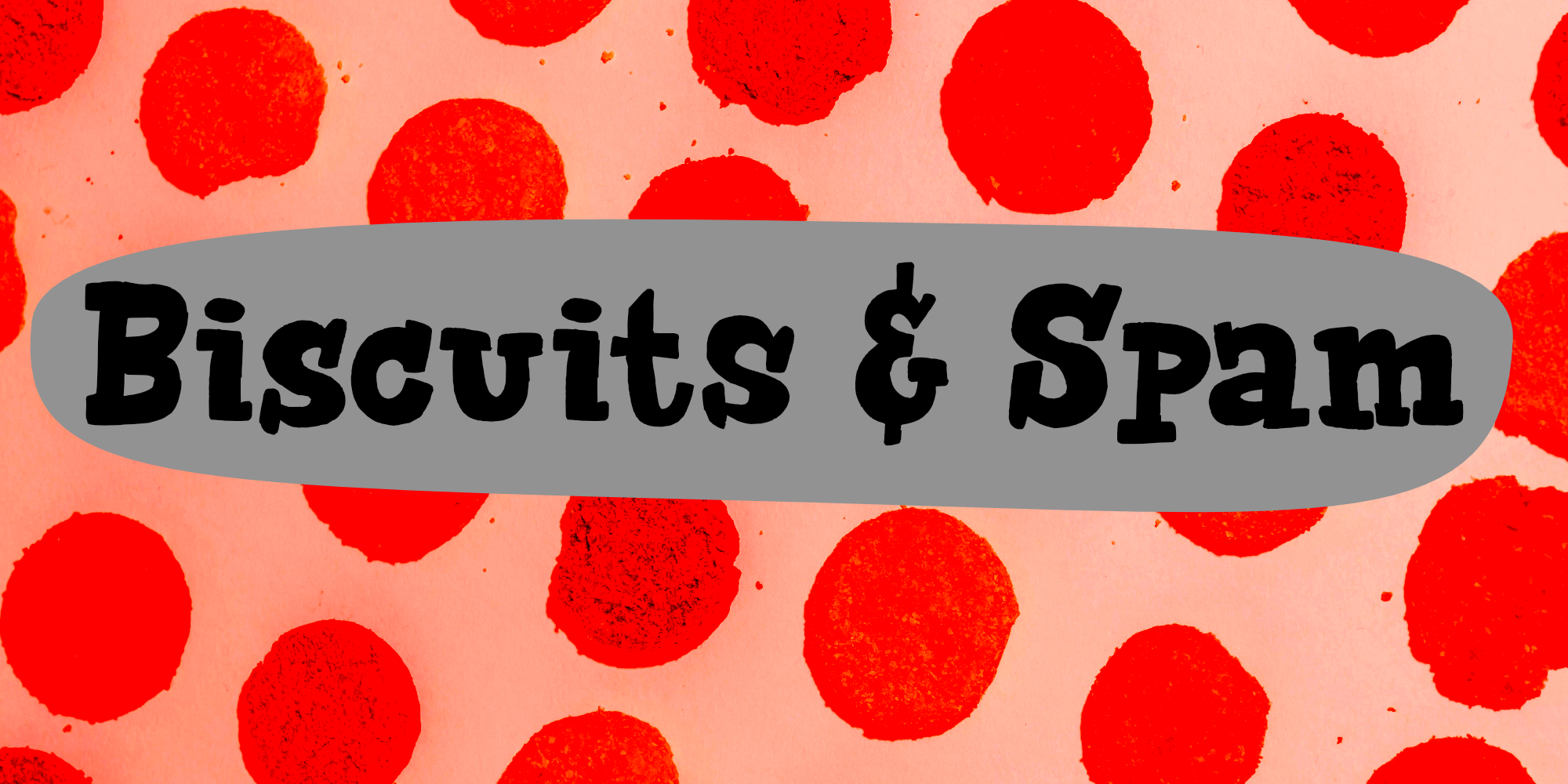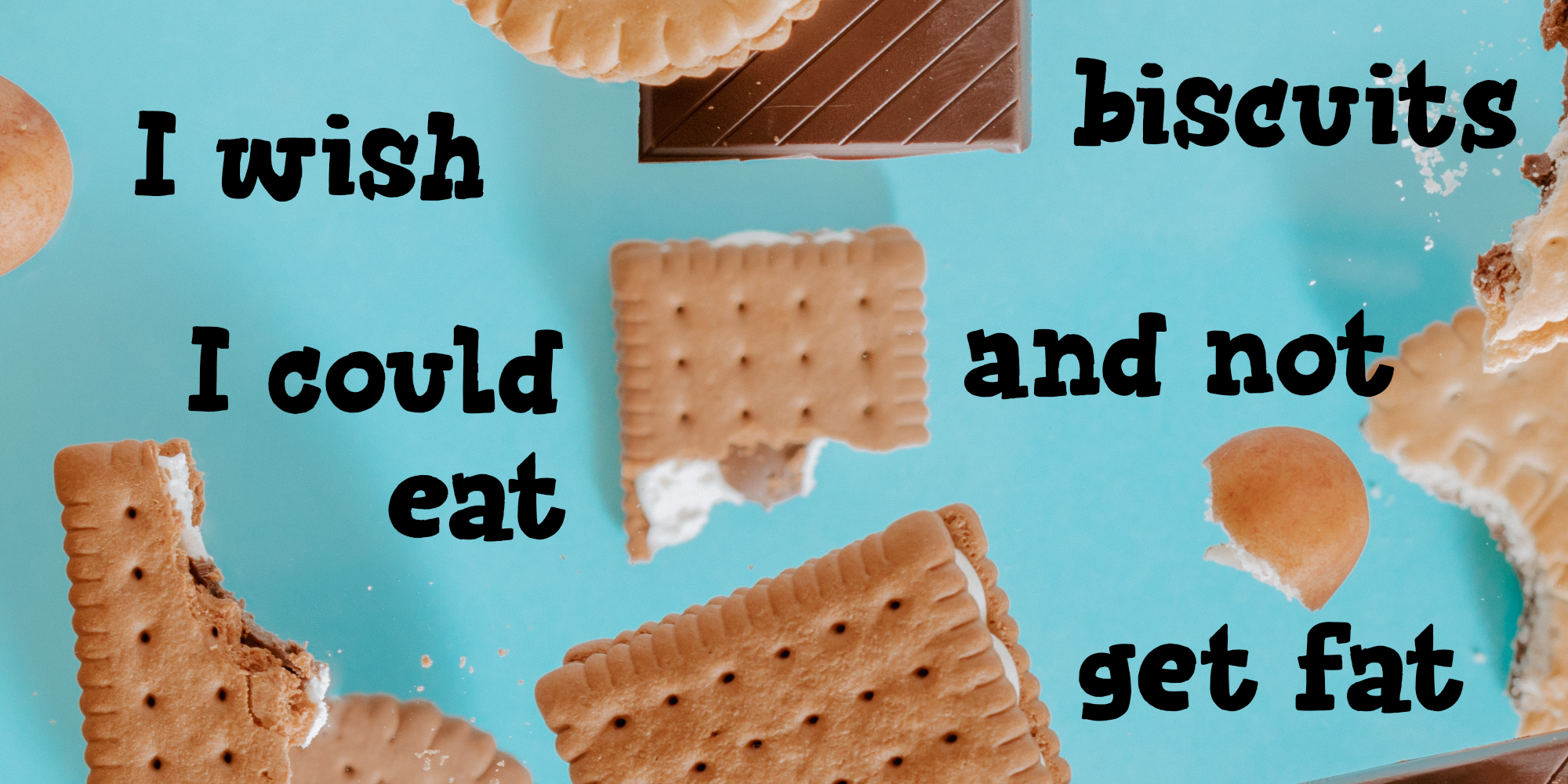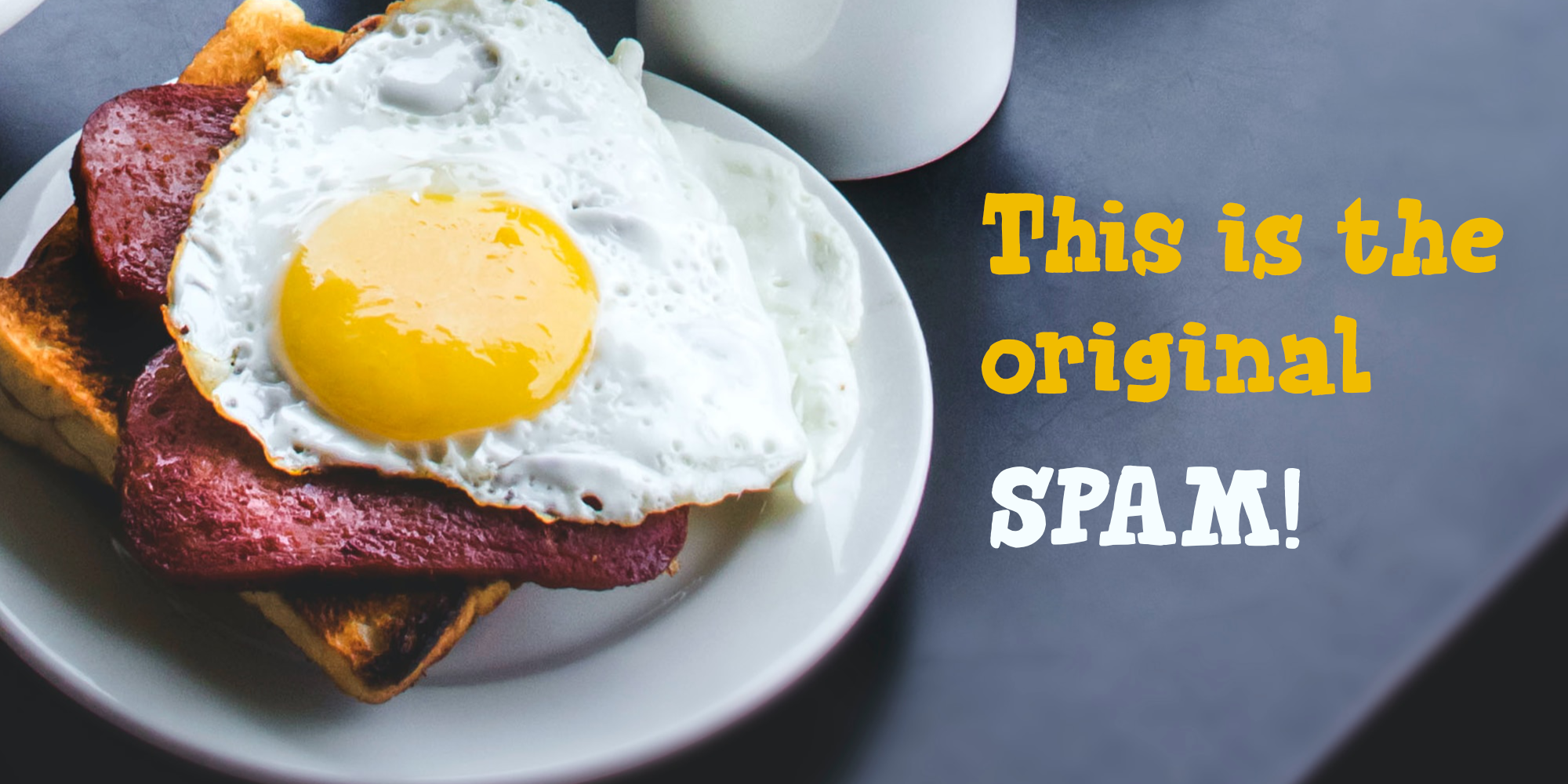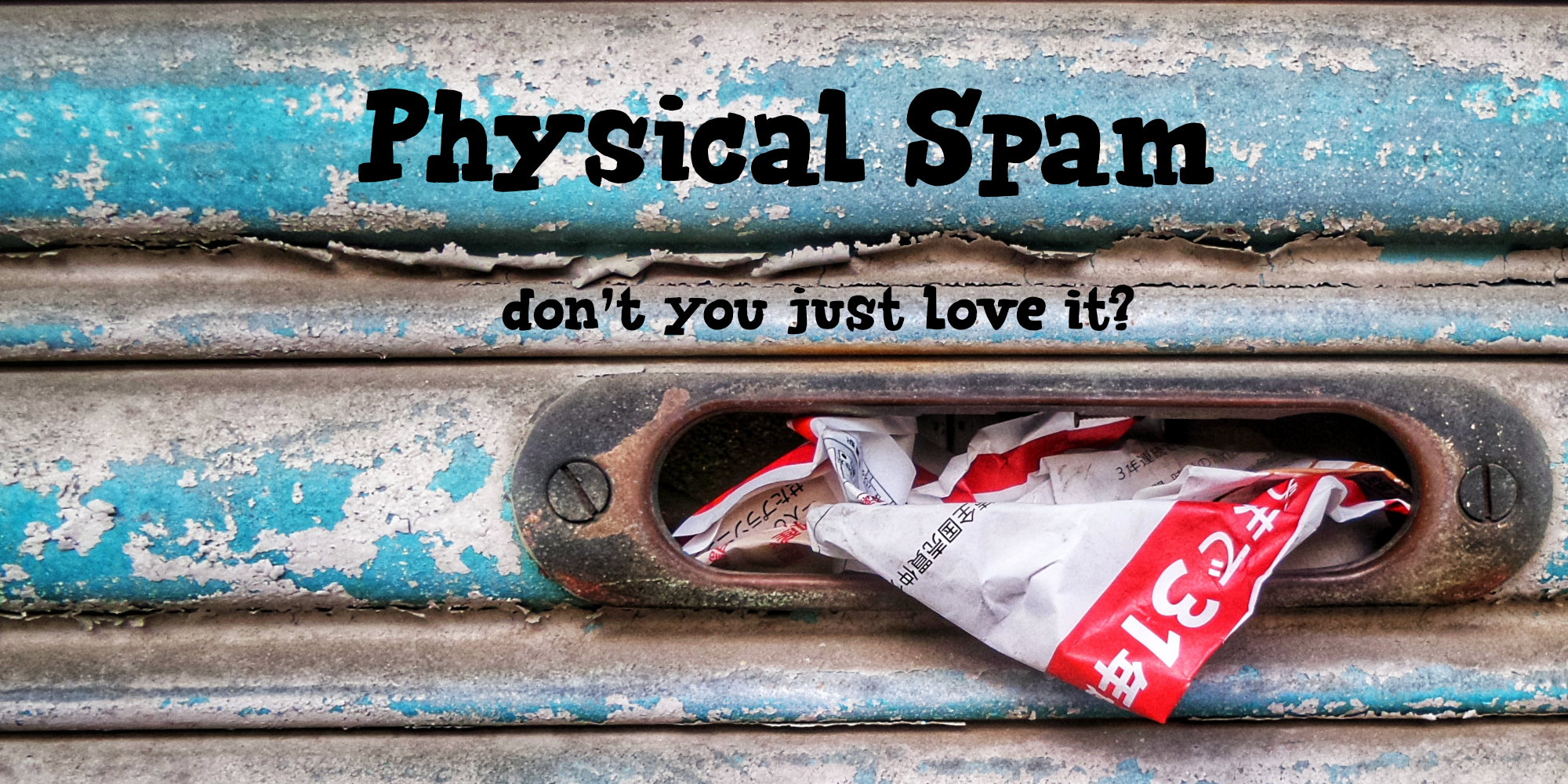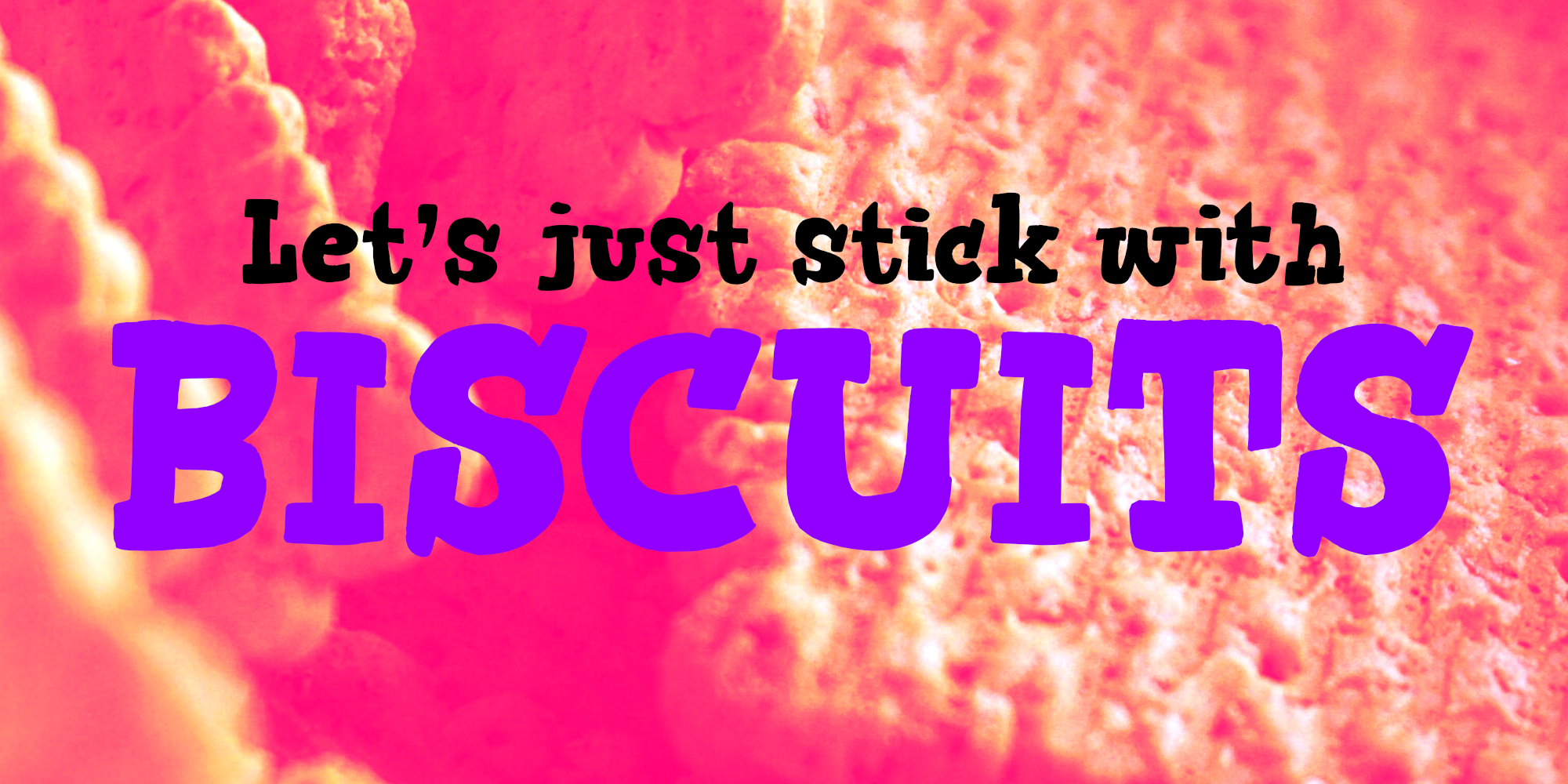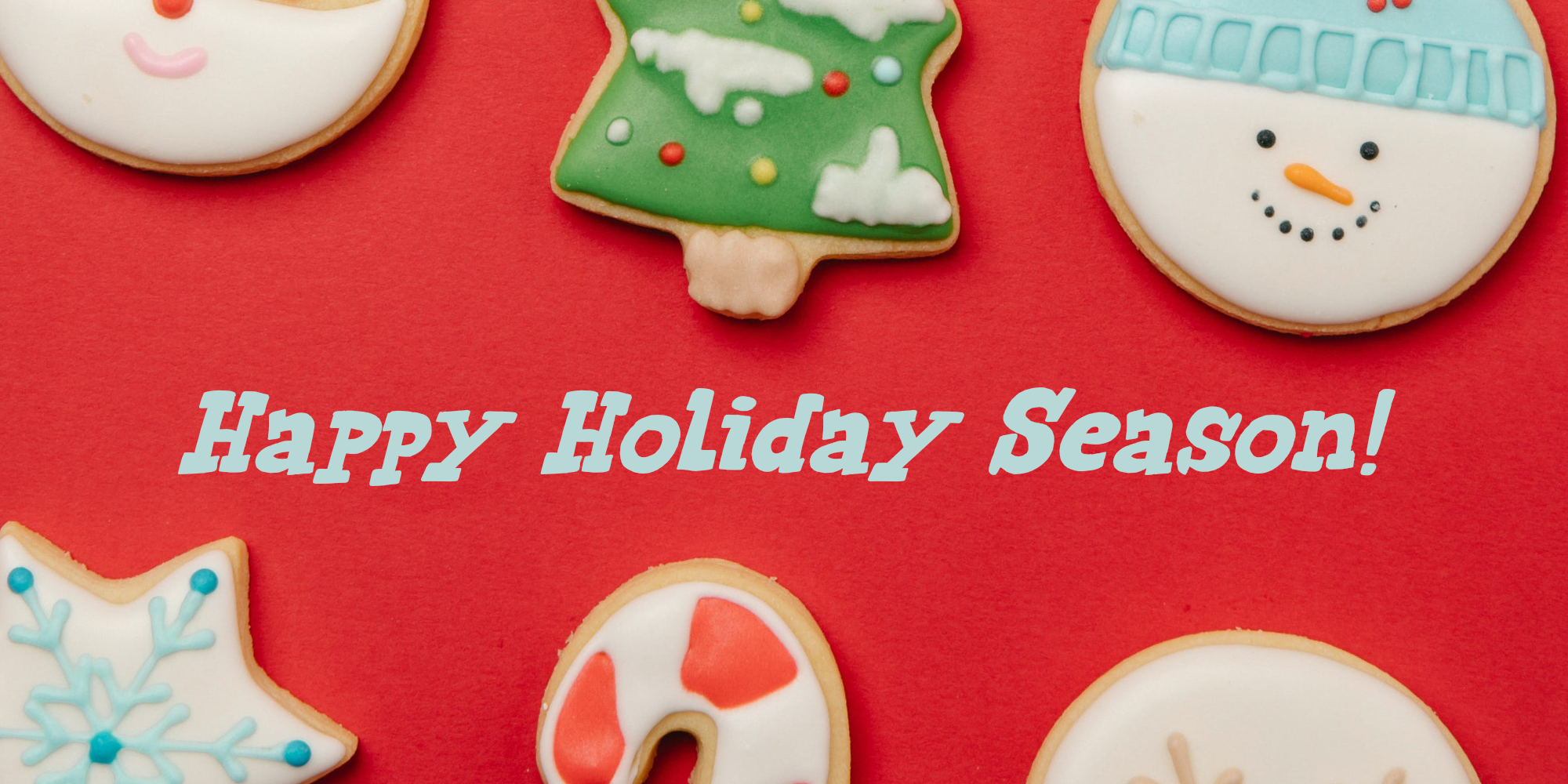
Biscuits & Spam (2 fonts)
Biscuits & Spam is a handmade ‘Western’ style font, which I found in my ‘unfinished fonts’ folder. It comes with multilingual support, a full set of alternates for the lower case letters and a really happy vibe.